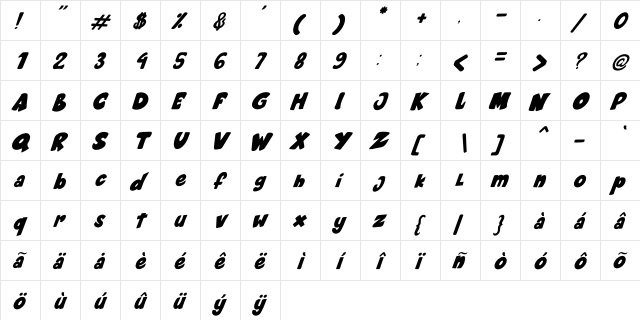
Cartoon cookies Tilted Italic
Design Context for Cartoon cookies Tilted Typeface
Cartoon cookies Tilted has an approachable, lighthearted character — its loose, expressive forms are well-suited to children's content, casual branding, and fun-first design. Its italic angle brings a sense of urgency and motion to the letterforms.
Font Pairing: Pairs well with a rounded or humanist sans for body copy, maintaining the friendly tone without relying on Cartoon cookies Tilted to carry extended reading.
Pro Tip: Avoid using Cartoon cookies Tilted for long passages of text — it works best for headlines, labels, and short calls to action.